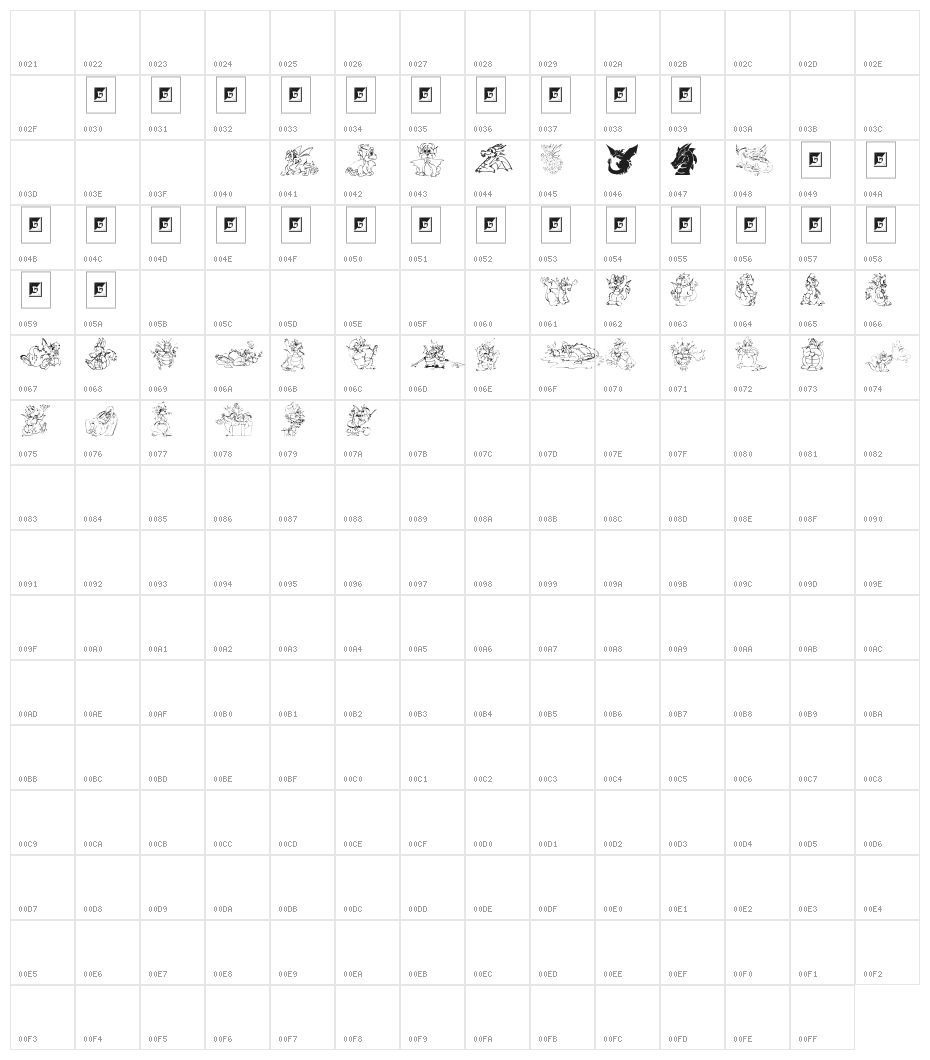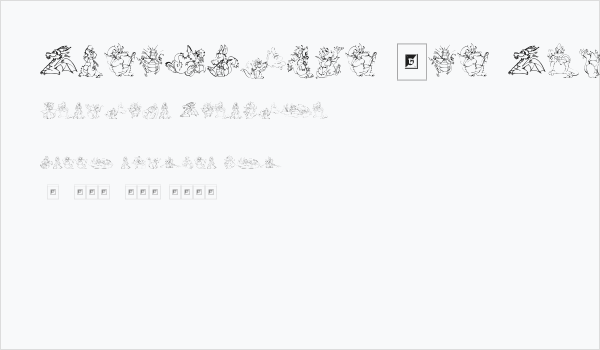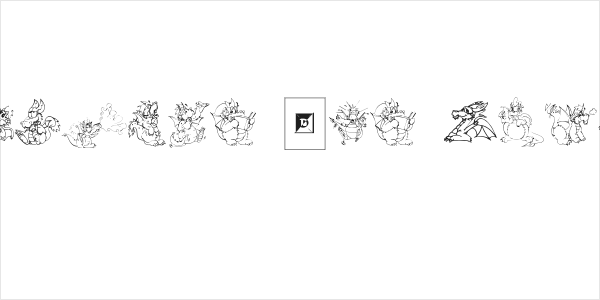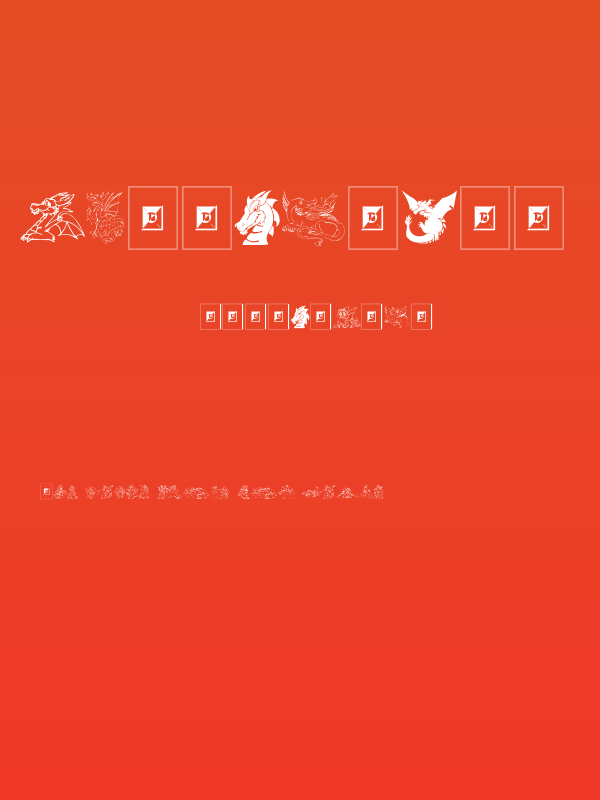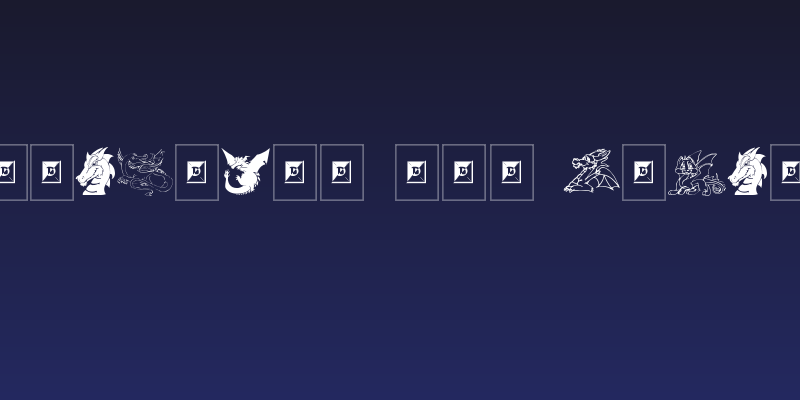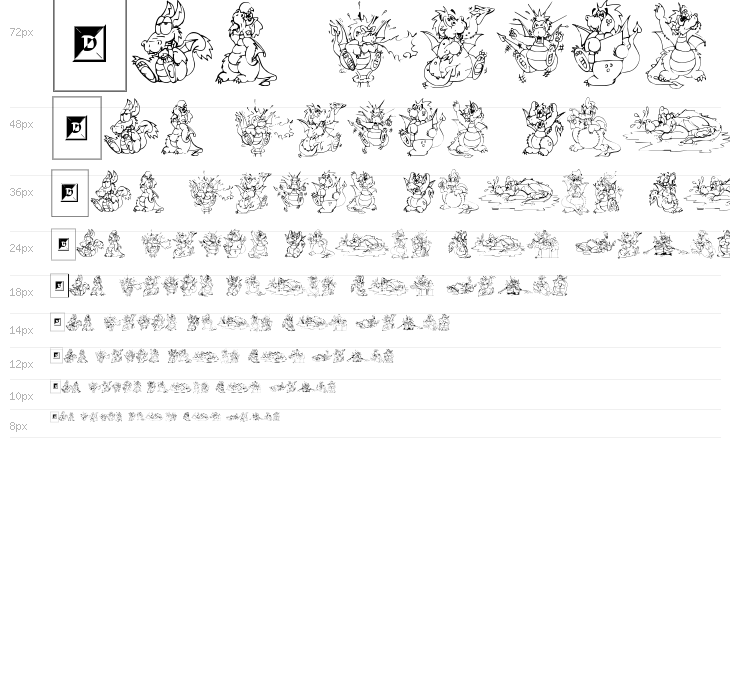
Delightful Lil Dragons Font
Delightful Lil Dragons Description
A decorative display font featuring whimsical, hand-drawn illustrations of playful dragons in various poses and activities, replacing standard alphanumeric characters. The style is cartoonish and detailed, with each glyph acting as a unique dragon-themed artwork rather than a traditional letterform.
| Overall Style | Decorative, Whimsical, Fantasy |
| Use Case | Logos, Headlines, Posters, Themed event materials |
| Proposed Projects | ChildrenΓ’β¬β’s books, fantasy-themed party invitations, game titles, posters, greeting cards, and decorative headings. |